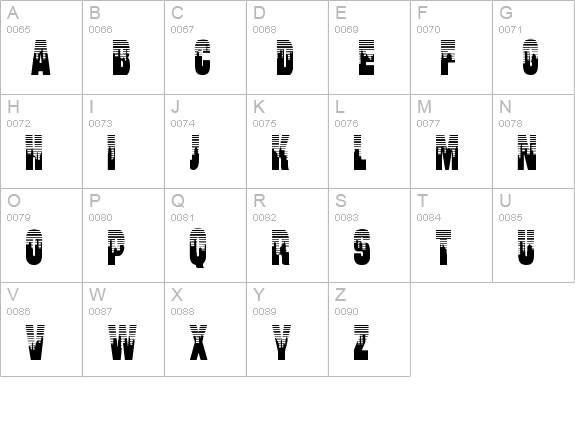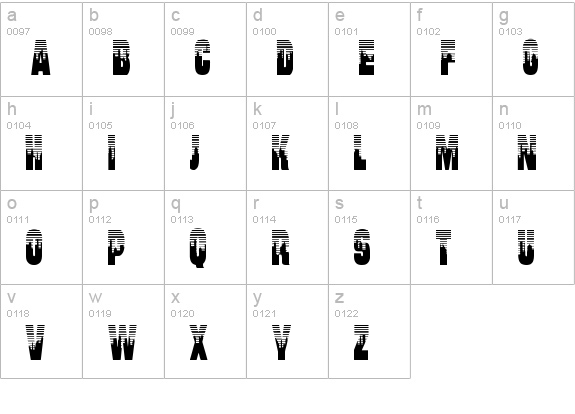
Introducing Will-Harris, a stunning font that effortlessly merges elegance with modernity. This remarkable typeface is the epitome of versatility, making it a go-to choice for designers and creatives alike. With its sleek and sophisticated letterforms, Will-Harris adds a touch of refinement to any project. What sets Will-Harris apart is its captivating balance between boldness and subtlety. Each character is meticulously crafted, combining clean lines with intricate details, resulting in a harmonious blend of simplicity and complexity. Whether used for headlines, logos, or body text, this font exudes confidence and professionalism. One of the most remarkable aspects of Will-Harris is that it is free! Yes, you read that right. This extraordinary font is freely available to download at FontsMarket.com, allowing you to enhance your designs without breaking the bank. It's the perfect opportunity to add a touch of elegance to your projects without compromising your budget. Designed with usability in mind, Will-Harris is exceptionally legible at various sizes, ensuring that your message is conveyed effortlessly. Its versatility shines through in both digital and print applications, making it a reliable choice for everything from websites to brochures to packaging. Whether you're a seasoned designer or just starting your creative journey, Will-Harris is a must-have addition to your font collection. Its timeless appeal and free availability make it an irresistible choice for designers seeking a font that combines style, functionality, and affordability. Download Will-Harris today at FontsMarket.com and elevate your designs to new heights. Experience the power of this exceptional font and unlock a world of possibilities for your next project. Don't miss out on this opportunity to add a touch of elegance to your creative endeavors with Will-Harris - the font that captivates and inspires.